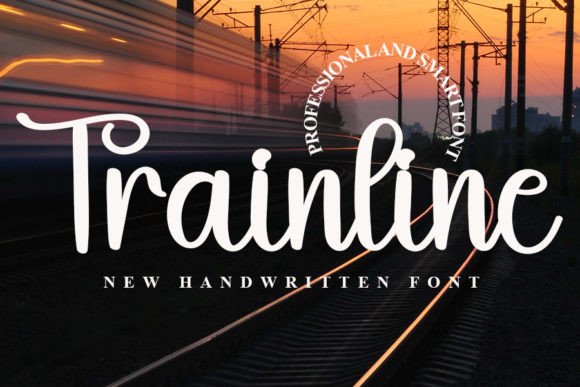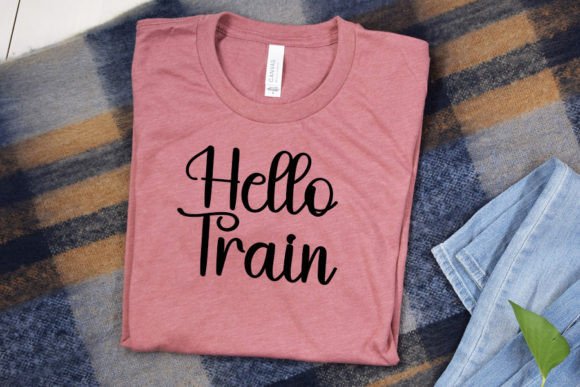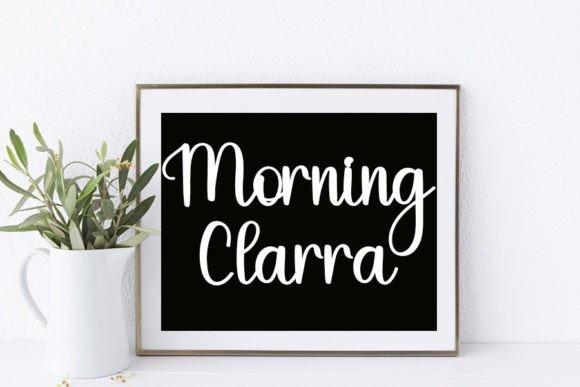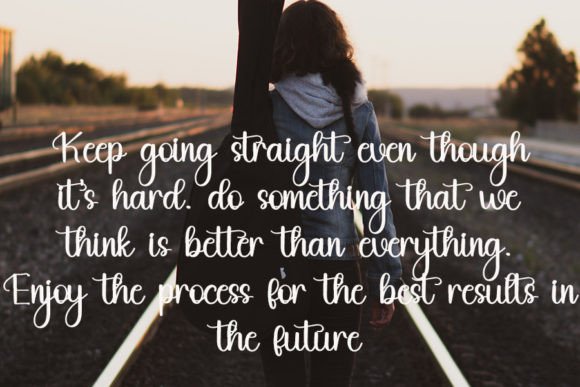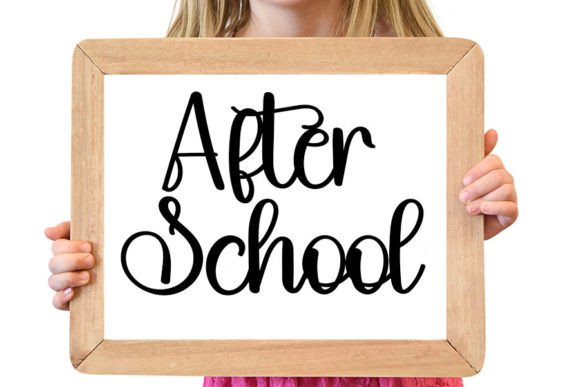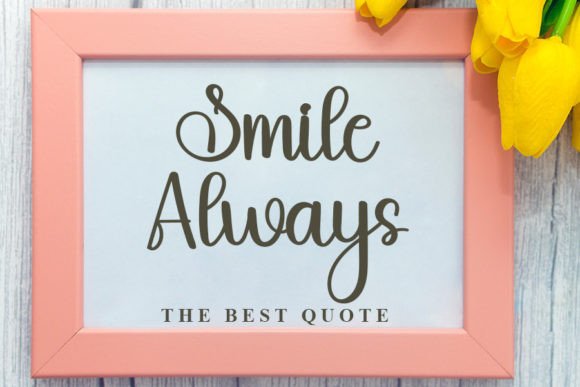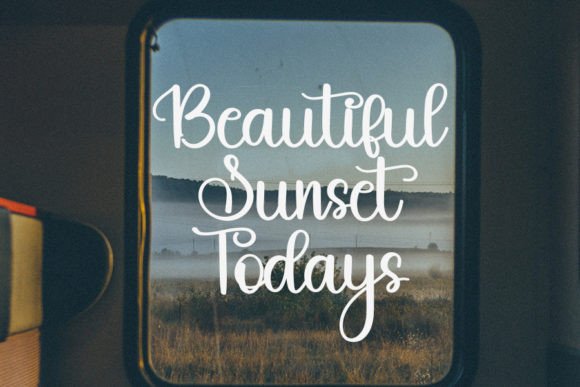
Trainline Font
About Trainline Font
Trainline exudes beauty and refinement as a handwritten font, offering a perfect blend of class and modernity. Tailored for a diverse range of applications, this font stands out as an excellent choice for logos, branding, invitations, stationery, wedding designs, and engaging social media posts.
The font’s aesthetic appeal lies in its timeless elegance, making it well-suited for projects that demand sophistication. Whether you’re crafting a logo to represent your brand or working on invitations for a special event, Trainline’s graceful strokes and contemporary style lend a touch of distinction. Its versatility shines through, effortlessly adapting to various design contexts and ensuring a seamless integration into a wide array of projects.
One notable feature of Trainline is its PUA encoding, providing a user-friendly experience for designers. With PUA encoding, accessing the font’s amazing glyphs and ligatures becomes a breeze. This functionality empowers designers to explore and utilize the full creative potential of Trainline, allowing for a customized and distinctive typographic expression.
Whether you’re curating stationery with an eye for detail, designing wedding materials that capture the romance of the occasion, or creating captivating social media posts, Trainline proves to be a font that rises to the occasion. Its ability to complement diverse design needs, coupled with the convenience of PUA encoding, makes it a valuable asset for those seeking both aesthetic appeal and functionality in their typography.
In conclusion, embrace the beauty and sophistication of Trainline as a handwritten font that seamlessly marries class with modern design. Elevate your projects, from logos and branding to invitations and social media content, and take advantage of Trainline’s PUA encoding to effortlessly access its stunning glyphs and ligatures. With Trainline, your designs are sure to convey a refined and distinctive visual identity.